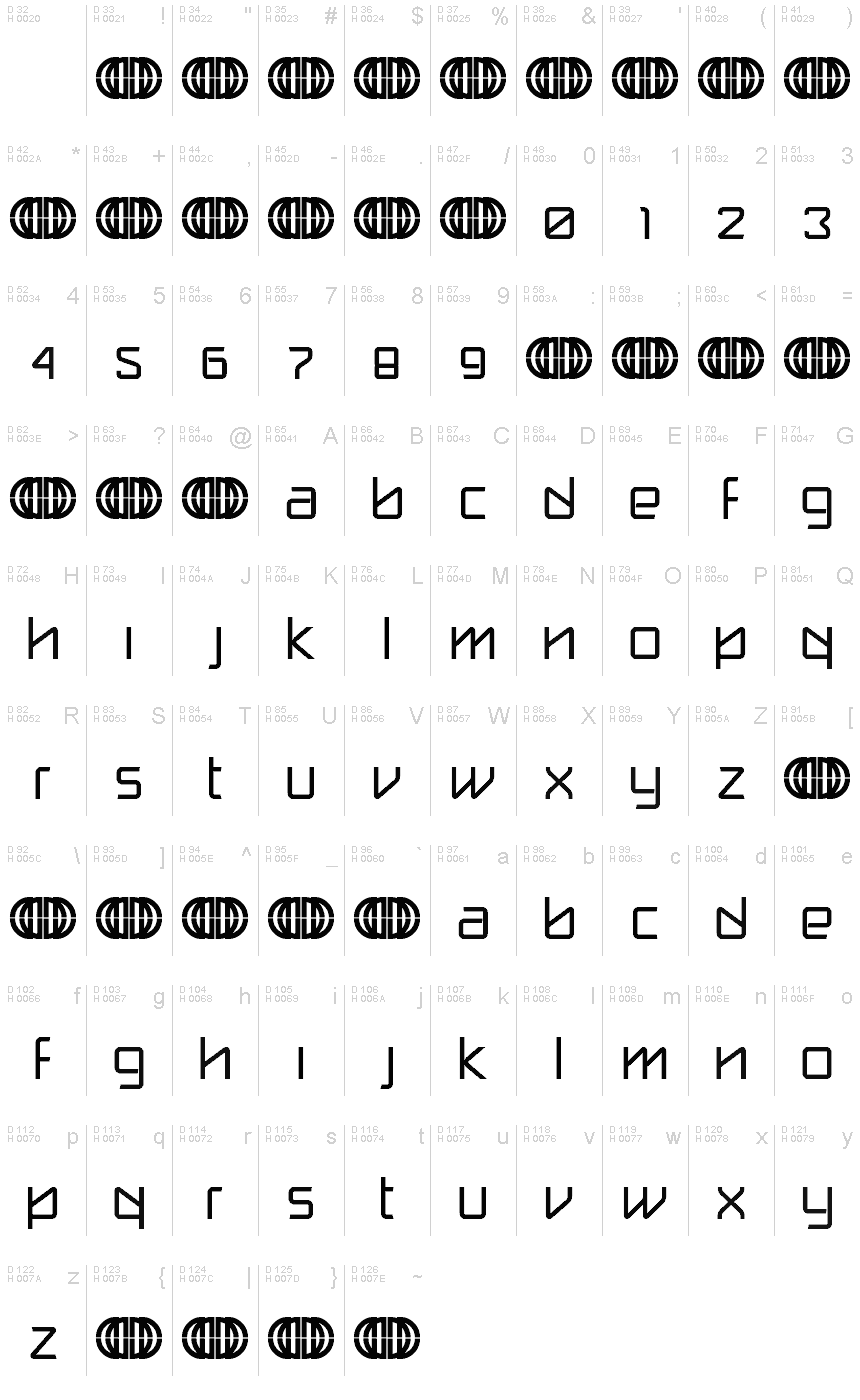
break label DEMO
Break Label is the new premium font from Muraknockout Media + Design.
Break Label was originally intended to be a font for my own private collection. Break is a little tech, a little future, a little minimal, a little too much. Break Label is a lower case font that is made especially for logo type, but can be used for eye catching headlines, posters, flyers, and much more. Break sets your designs apart from the rest.
Break Label is a lowercase font, meaning there is no uppercase, and only bold, stylish lowercase letters. Break includes all the bells and whistles a font should: Extensive foreign characters, punctuation, numbers, and class.
Break Label was created for my personal record label logo of the same name, and is used by other record labels as well.